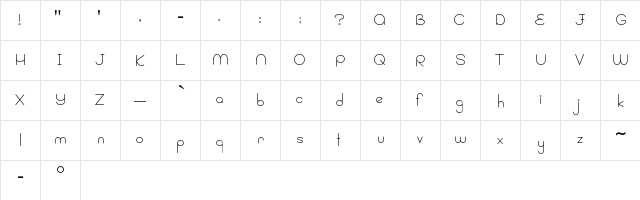
Aquamarine Regular
Design Context for Aquamarine Typeface
Aquamarine is a composed and adaptable typeface that performs quietly and consistently across a wide range of design contexts.
Pro Tip: Use Aquamarine in both headline and body roles to test its range before committing to a single application.